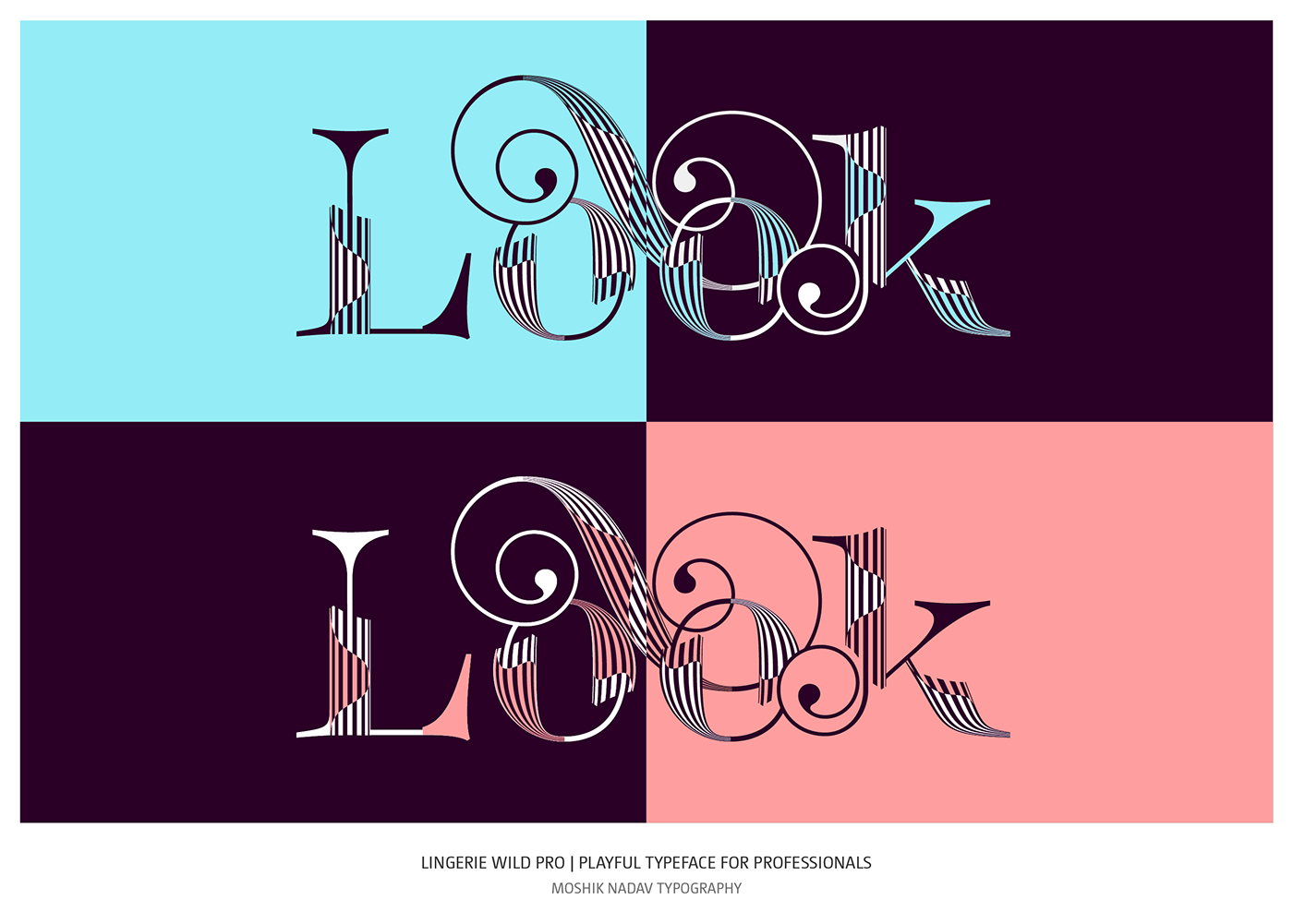
LINGERIE WILD PRO
THE MOST PLAYFUL TYPEFACE FOR PROFESSIONALS
Lingerie Wild Pro is the most playful font ever designed, ready to take the professional world by storm.
Lingerie Wild Pro’s high impact design will immediately draw attention to luxury brands, fashion magazines, and assist design studios in creating incredibly unique typography without the extra effort. You simply won’t be able to tear your eyes away.
With the wide range of glyphs, innovative open-type features, smart swashes and exciting ligatures, Lingerie Wild Pro will make you forget everything you thought you knew about a typeface. Hold tight and get ready for your new addiction.
Lingerie Wild Pro has been in production for the last couple of years. Every curve manually crafted. We spend thousands of hours focusing on each small detail to give designers a smart & powerful typeface that can add an element of fun to the complex design process. Our mission was to bring you the world’s most tantalizing and exciting typeface yet. We hope you love the results and admire the effort.
4 Powerful styles
Enjoy high-powered styles and combine infinite variations.
Your greatest creation is just a second away.
Ligatures. New and original.
Enjoy high-powered styles and combine infinite variations.
Your greatest creation is just a second away.
Smart swashes
Swashes so smart, sexy and unique, they will enhance any situation.
Luxury and fashionable swashes are built-in.
Languages? S'il vous plaît.
With support for most common languages.
The entire universe will understand what you have to say.
Alternate glyphs. For any scenario.
Each enticing alternate will help you to create a perfectly unique, bespoke look for any new project. Whether you’re designing a brand new logo, creating the latest fashion magazine cover, or naming a high-end perfume, this typeface is longing to be yours.
Numerals like no other.
Make an impact in countless ways.
Bold statement, naughty numerals like never before. Are you ready for it?
Ampersands. Many Ampersands.
Lingerie Wild Pro comes with a multitude of high impact ampersands.
Each one will make you fall in love.
Works like magic.
Feel the magic happening as you type with Lingerie Wild Pro.
The sophisticated Open-Type features will set your world alight.
Custom words are built-in, all you have left to do is sit back and
enjoy the unique styles that allow you to combine endless variations
of colors and create outstanding typography, in seconds.